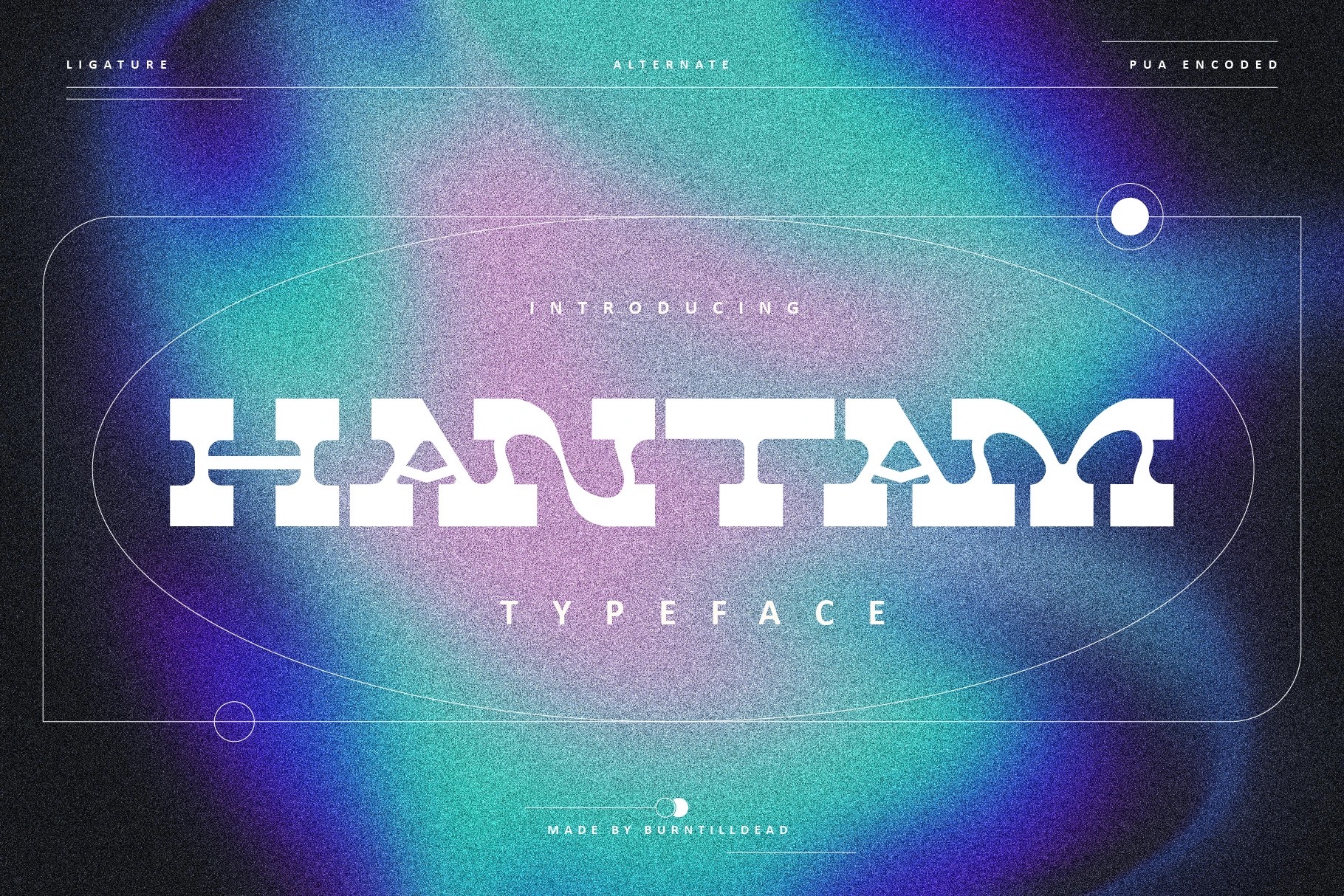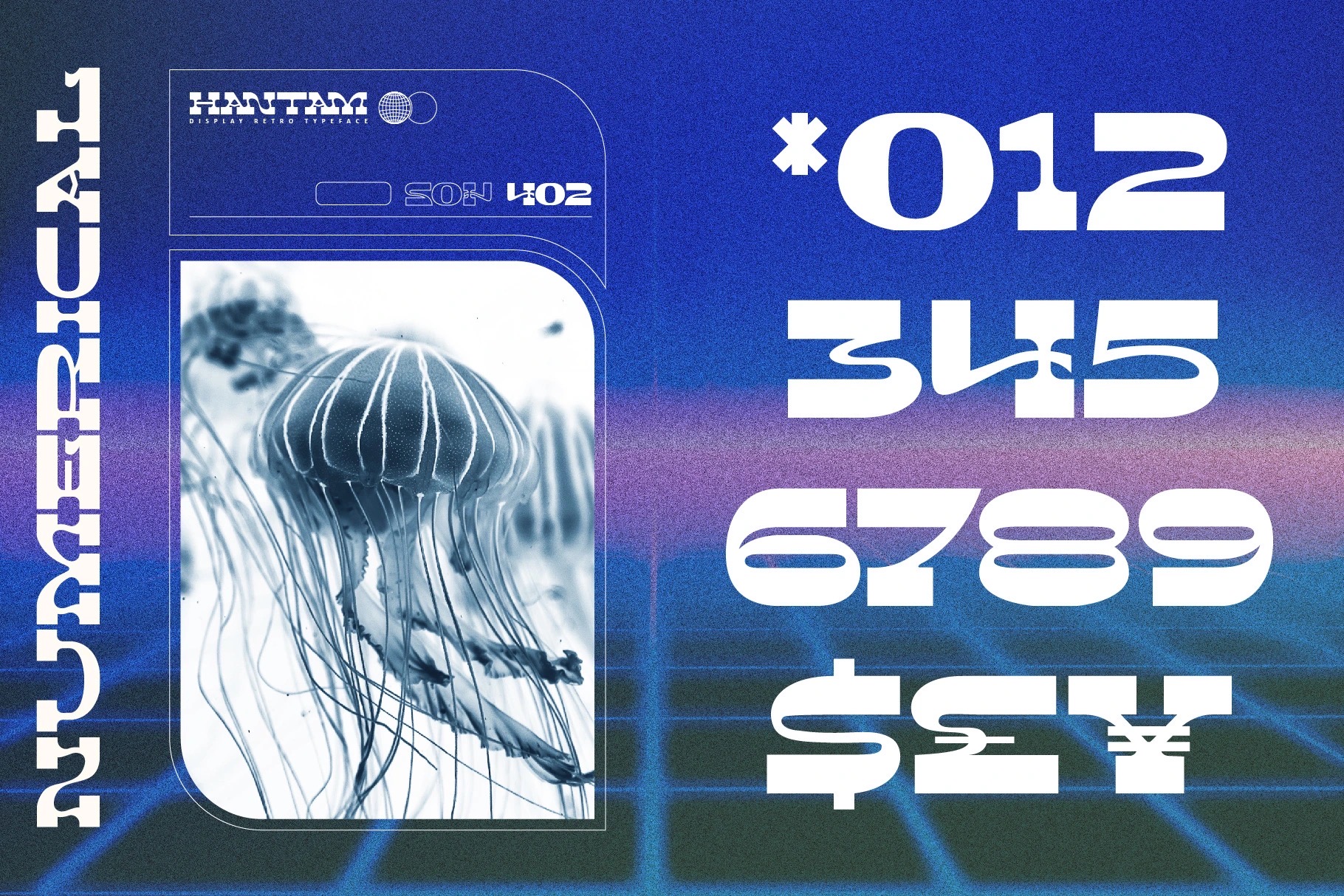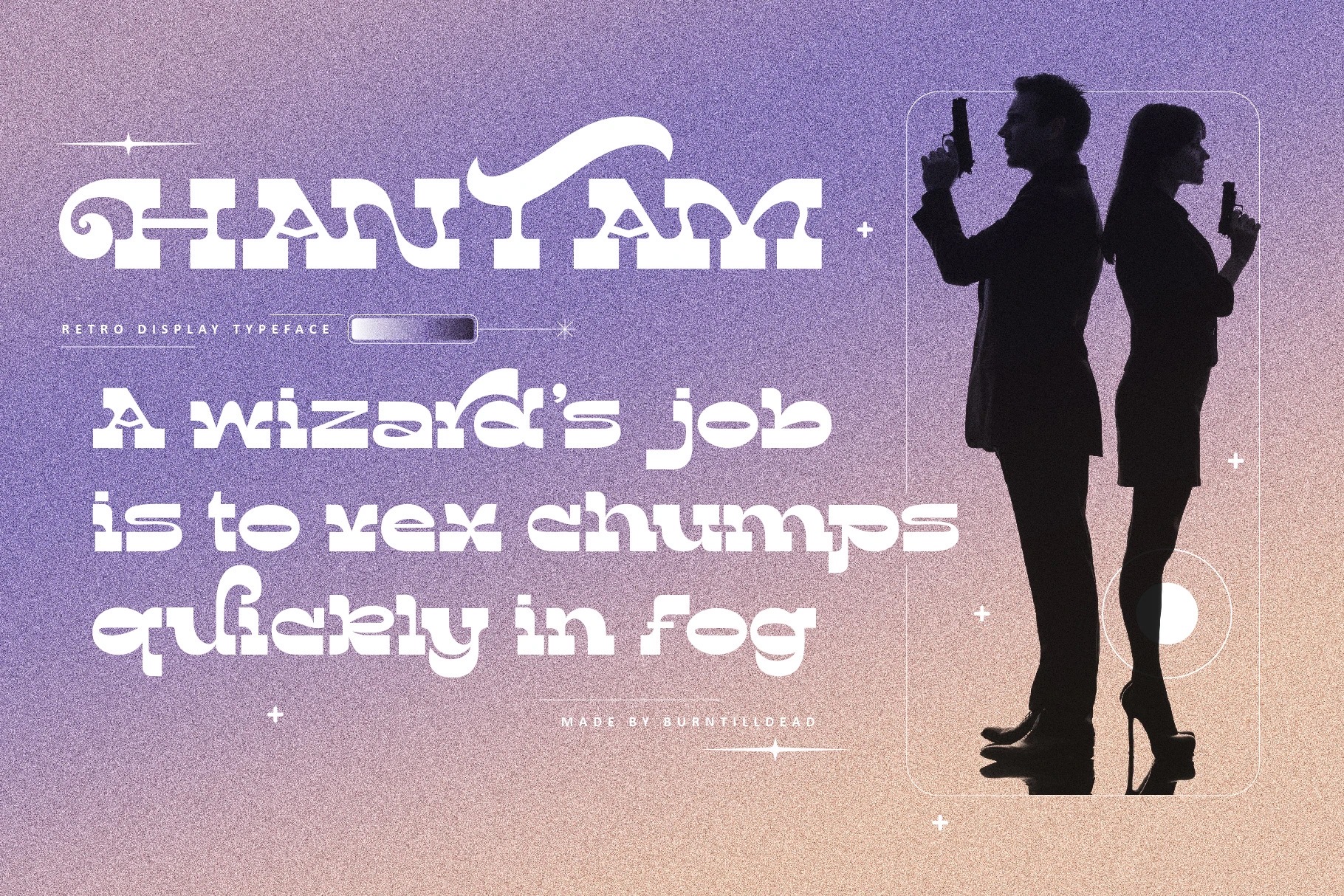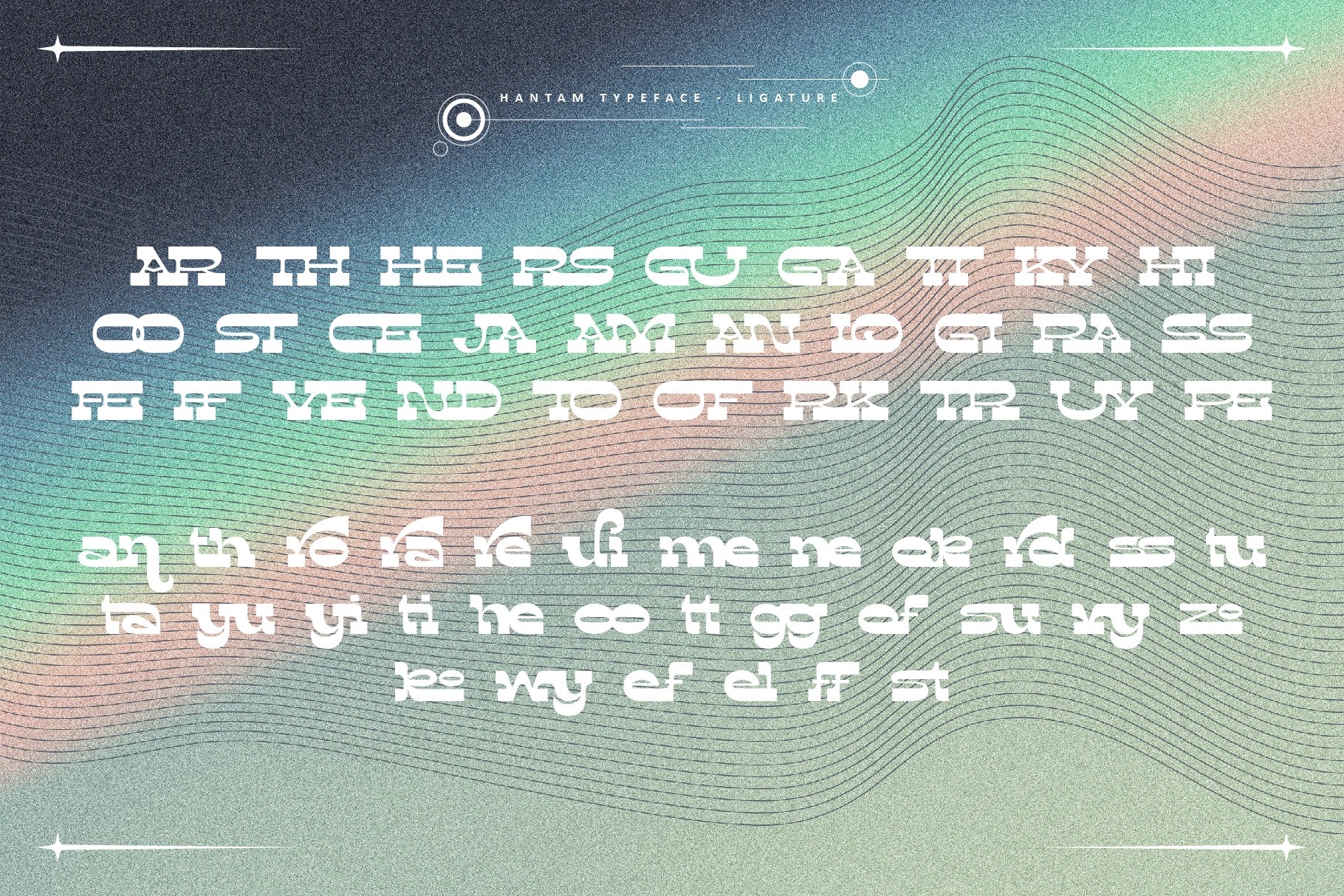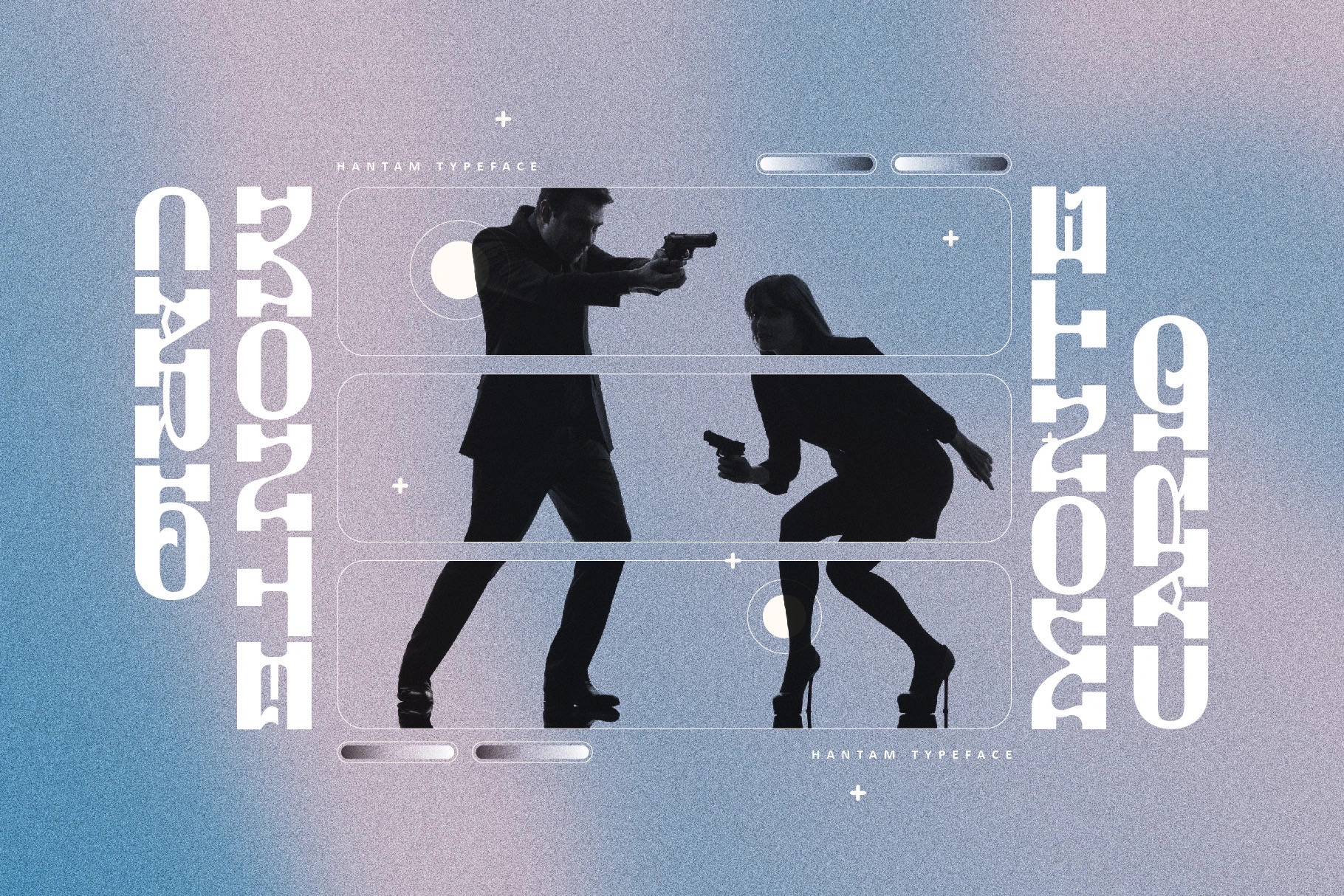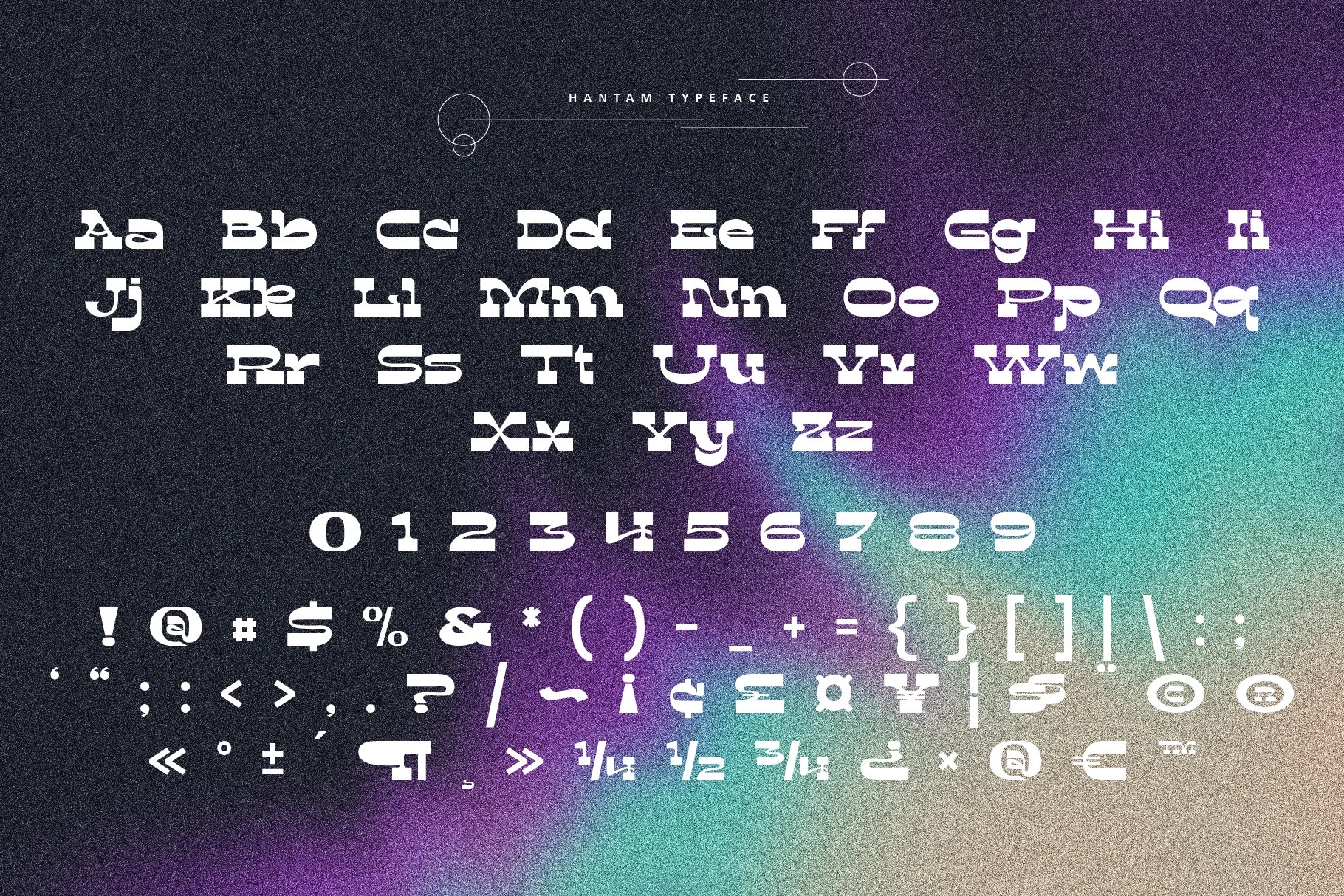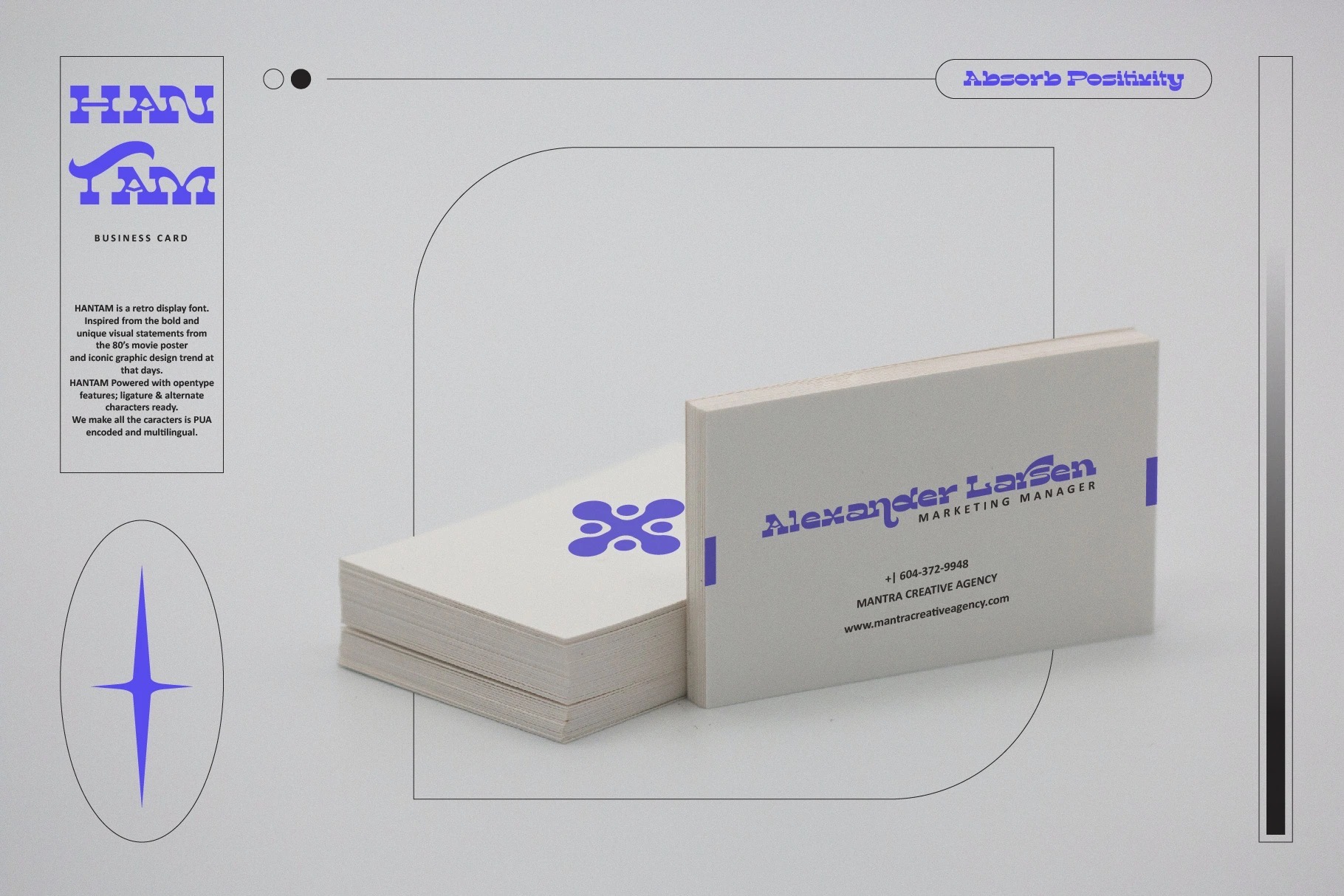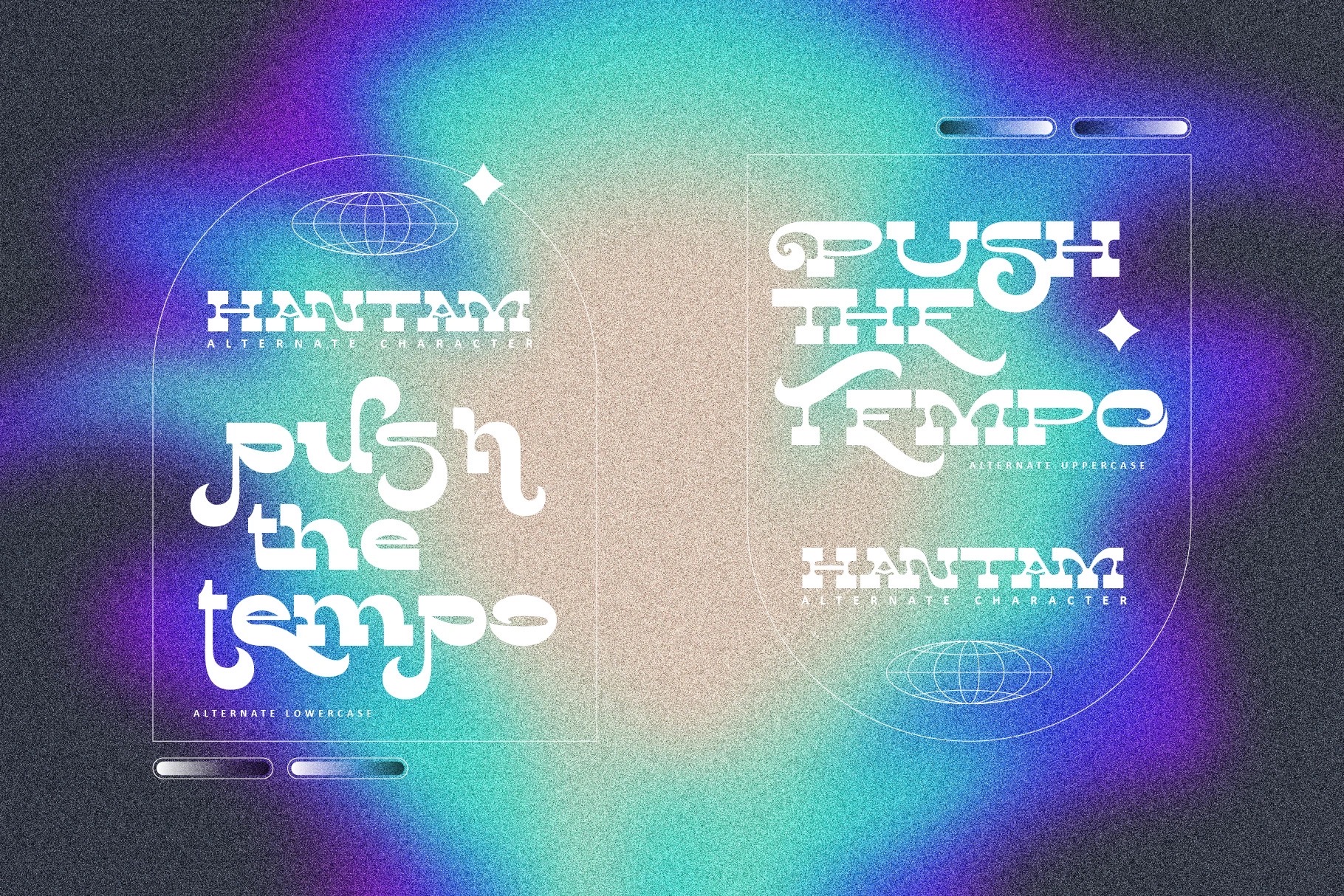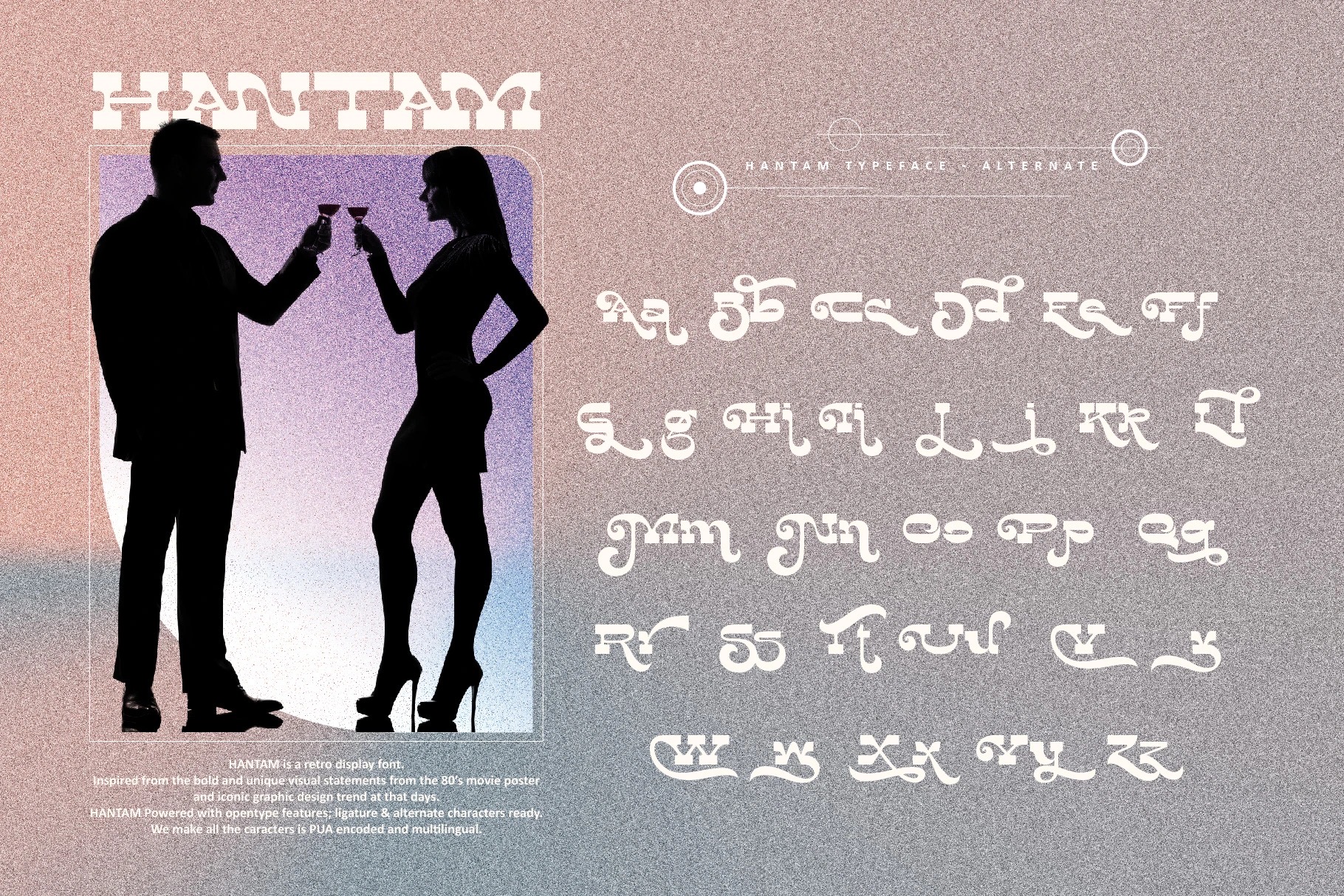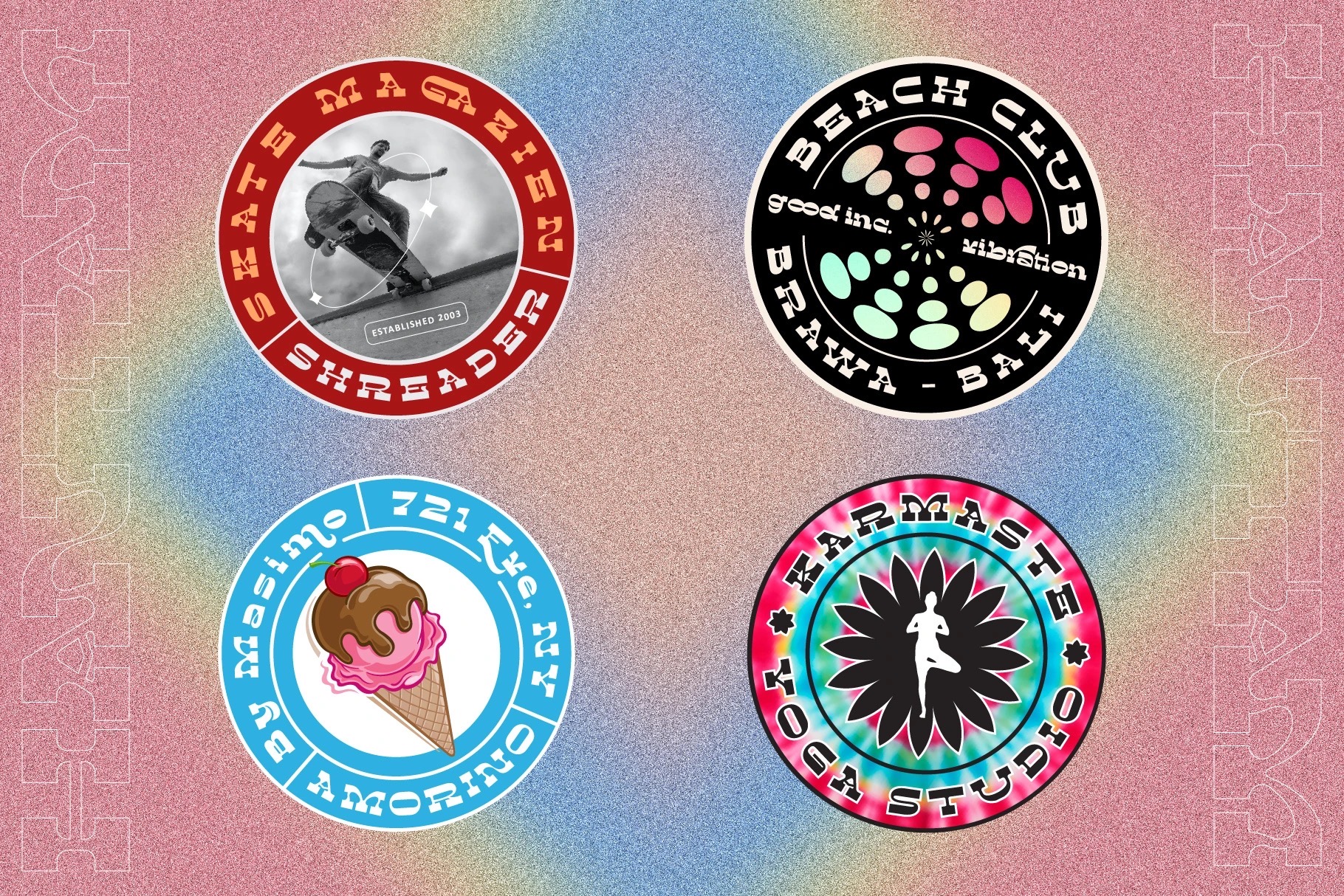
Hantam
Hantam is a retro display font. Inspired from the bold and unique visual statements from the 80’s movie poster and iconic graphic design trend at that days.
Hantam Powered with opentype features; ligature & alternate characters ready.
We make all the caracters is PUA encoded and multilingual.
• A – Z set (Uppercase & Lowercase)
• Number
• Punctuation
• Alternates
• Ligatures
• Multilingual